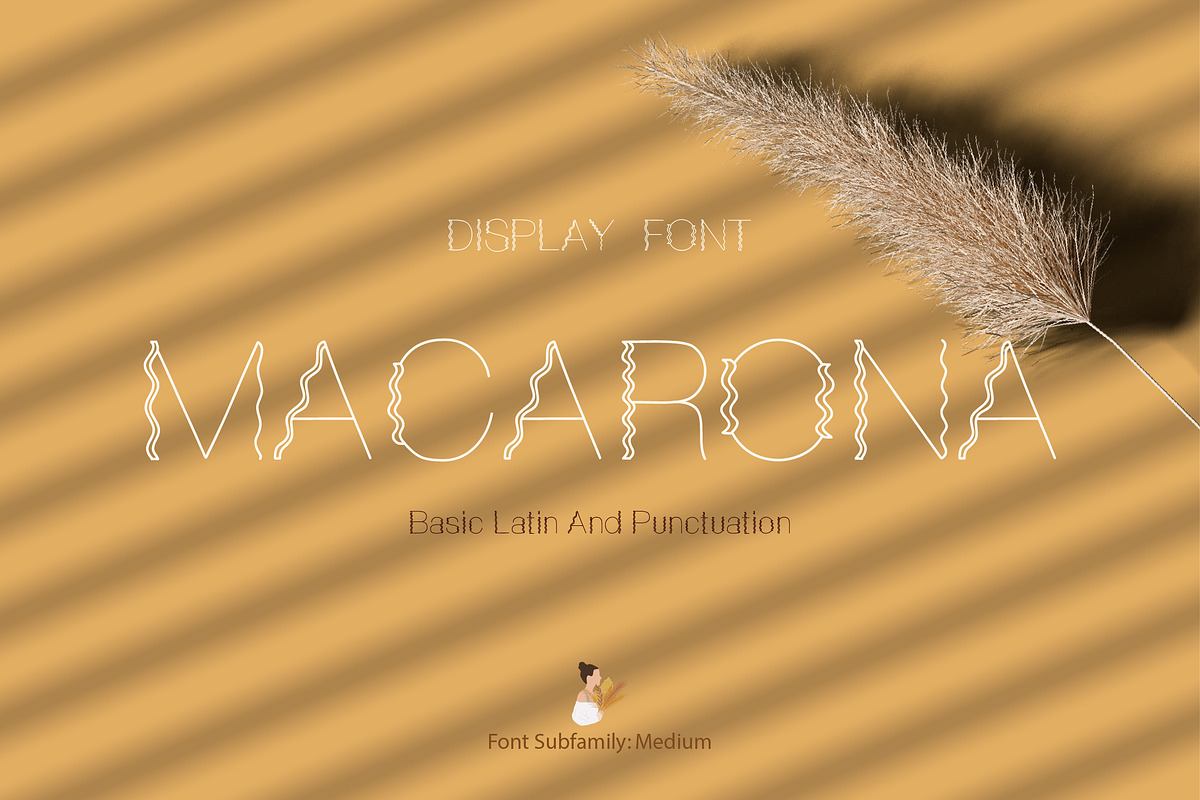
Macarona Font Free Download is a playful and creative typeface that adds a burst of personality to any design. With its handcrafted charm and slightly quirky style, this font is perfect for invitations, posters, packaging, and branding projects that need a fun and approachable look. Macarona stands out with its unique curves and artistic flair, making your work instantly more engaging.
Using the Macarona Font Free Download in your designs means adding warmth and character with every letter. It's ideal for creators who want their visuals to feel friendly, expressive, and original. Whether you're designing for a small business, personal project, or social media content, Macarona delivers style without sacrificing readability.